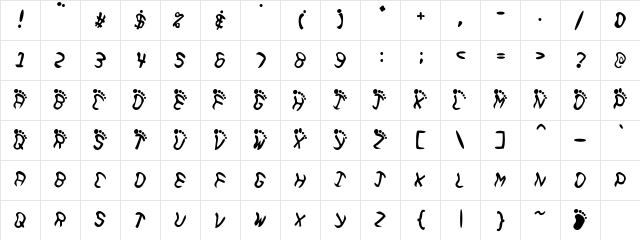
Feetish Regular
Design Context for Feetish Typeface
Feetish is a composed and adaptable typeface that performs quietly and consistently across a wide range of design contexts.